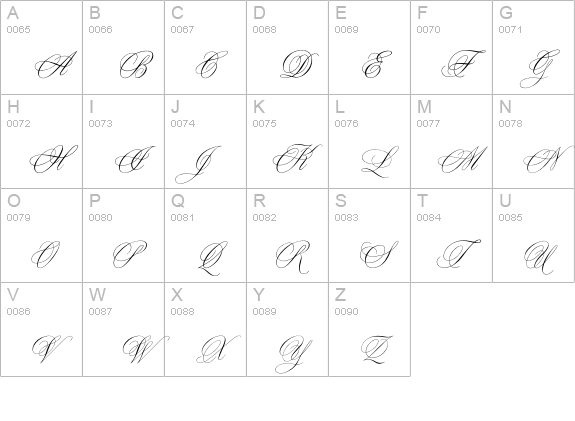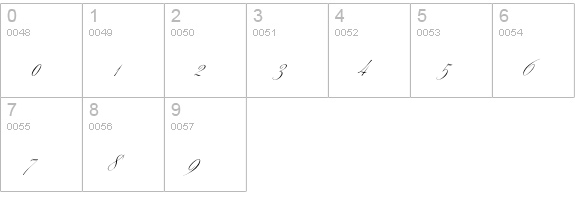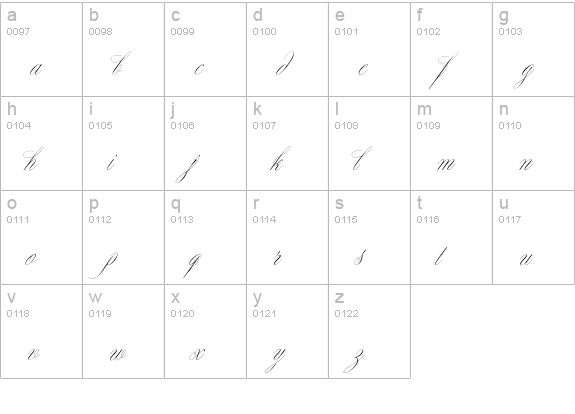
Butterfly Font Details
Introducing Butterfly font, a delicate and graceful typeface that embodies the elegance and beauty of a butterfly in flight. With its whimsical curves and intricate details, Butterfly font is perfect for adding a touch of charm to any design project. This font features a unique combination of flowing lines and intricate flourishes that create a sense of lightness and movement, much like the delicate wings of a butterfly. Whether used for invitations, branding, or creative projects, Butterfly font will bring a sense of sophistication and ethereal beauty to your work. Best of all, Butterfly font is available for free download at FontsMarket.com. So spread your wings and let your creativity soar with this enchanting typeface.